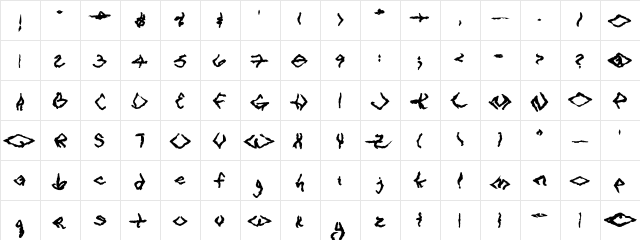
VTC SeeJoBreak Bold
| Designer | WolfBainX |
Design Context for VTC SeeJoBreak Typeface
VTC SeeJoBreak is a composed and adaptable typeface that performs quietly and consistently across a wide range of design contexts. The heavy weight commands attention and anchors typographic hierarchies.